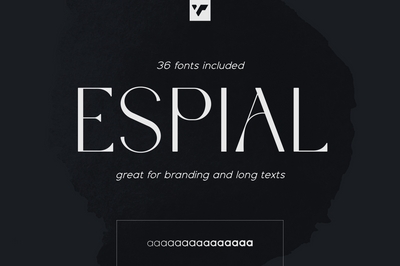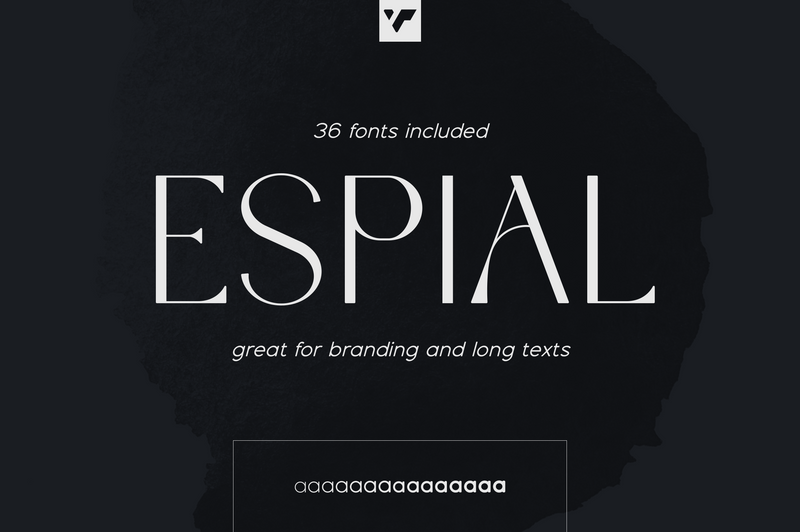
Espial typeface – 36 fonts
Introducing Espial typeface – 36 fonts
Espial is modern and yet vintage, timeless typeface loaded with 36 font styles (display, regular, italics) 87 languages support and ligature glyphs to make you typography truly unique!
FEATURES
- Uppercase, lowercase, numeral, punctuation & Symbol
- ligature glyphs
- Display font – regular and italic
- 17 sans serif weights – regular and italics